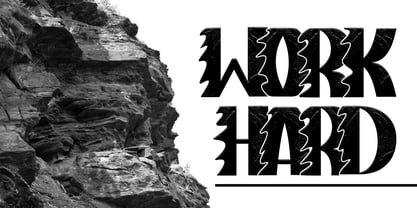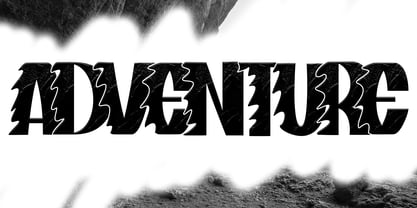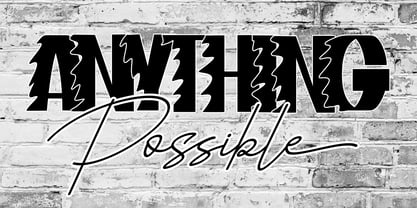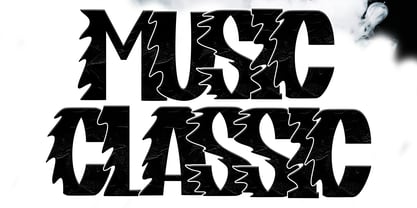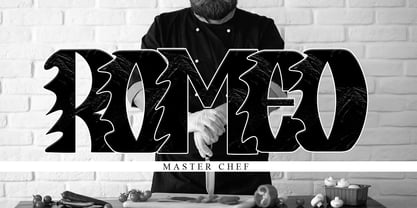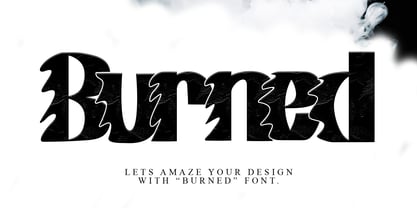
The Burned Font Family was designed by Ahmad Afandi and published by Letterafandi Studio. Burned contains 2 styles and family package options. More about this family
Introducing "Burned" - a striking display font that exudes a visceral metallic aura. Designed to individualize and amplify your creative projects, "Burned" is more than just a font. It's your secret tool for crafting design that stands a class apart!
Designers: Ahmad Afandi
Foundry: Letterafandi Studio
Burned